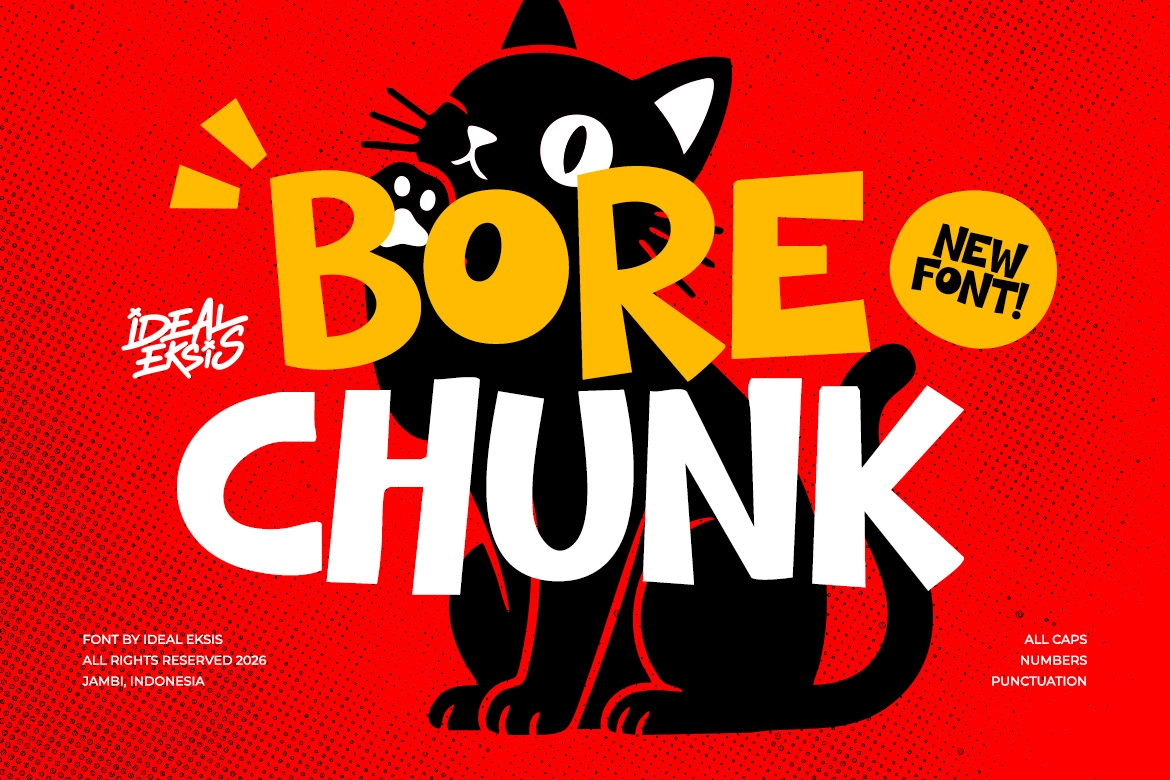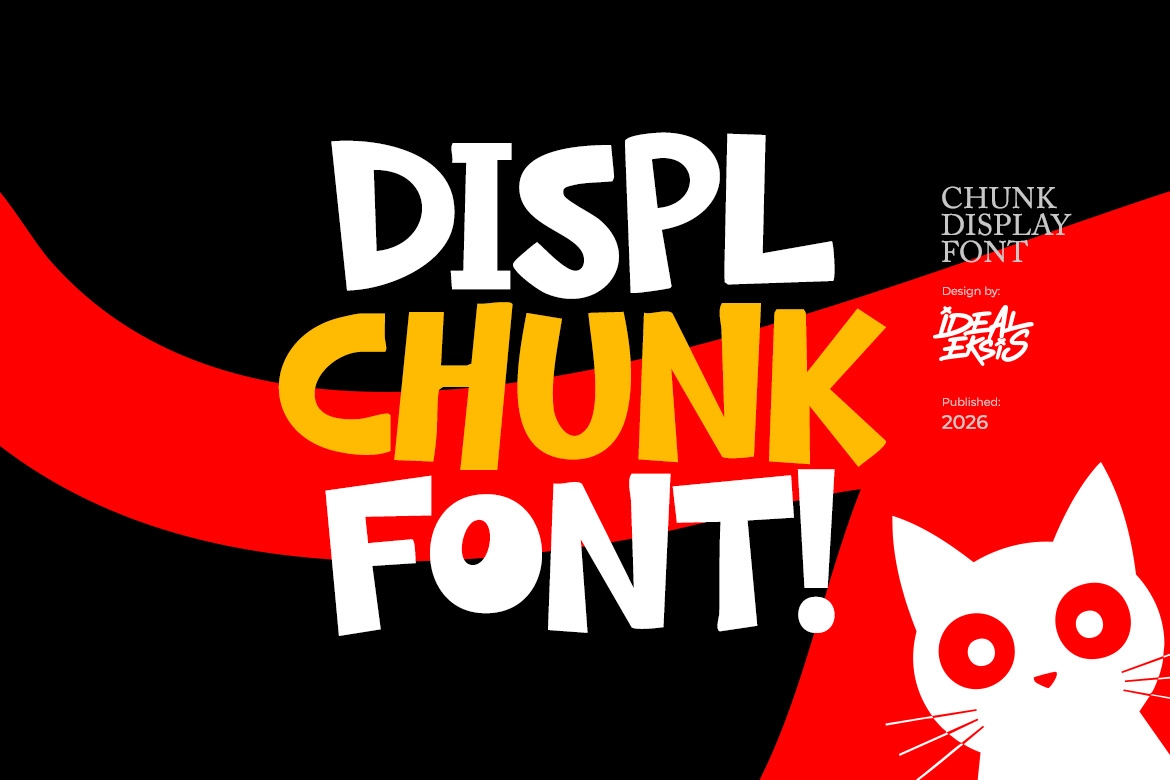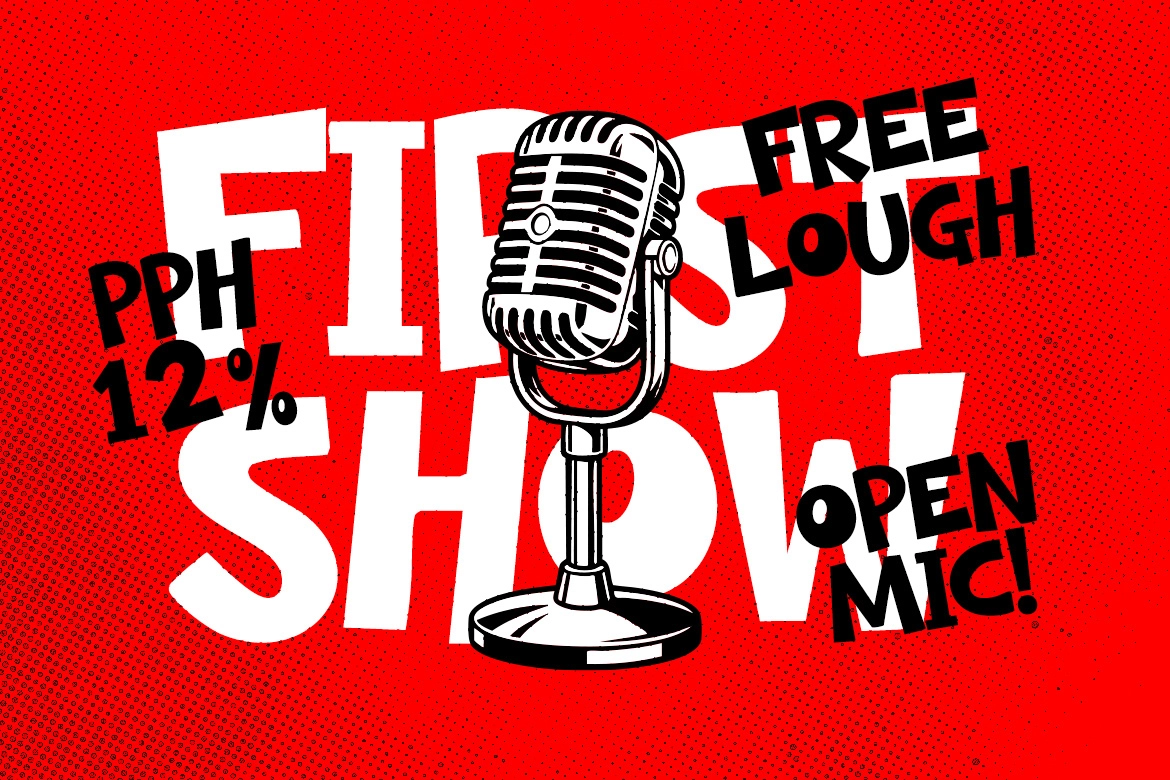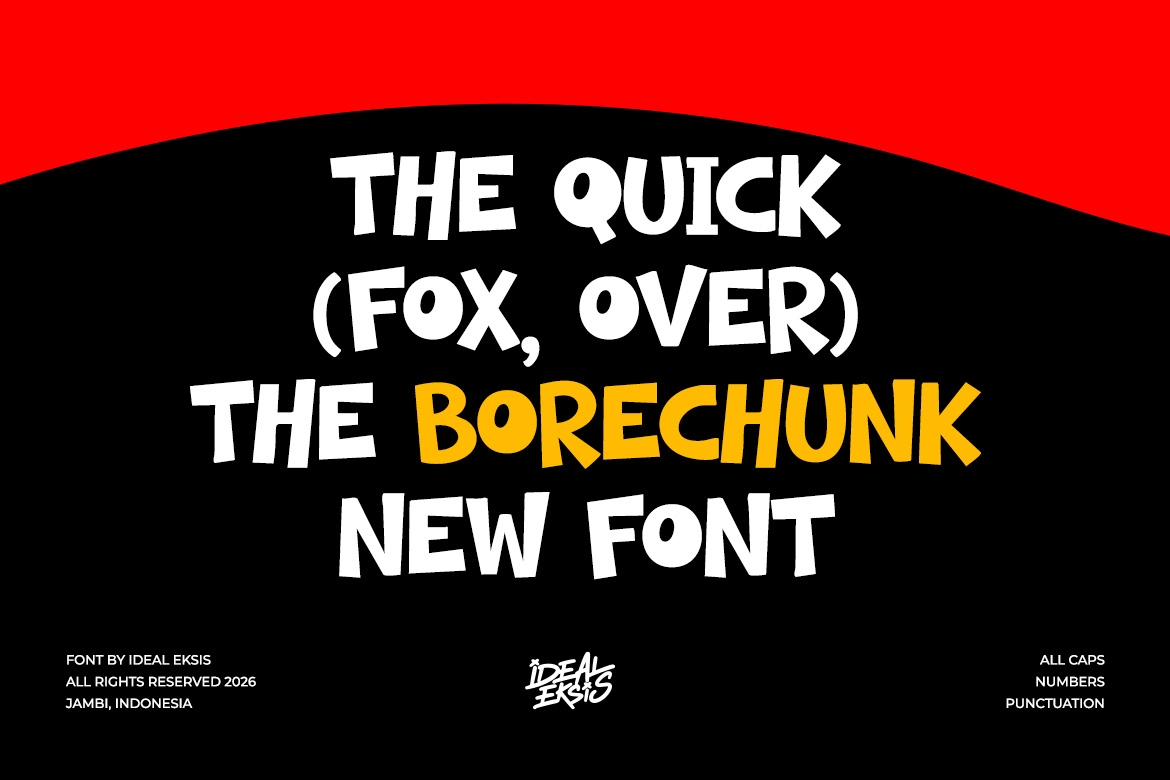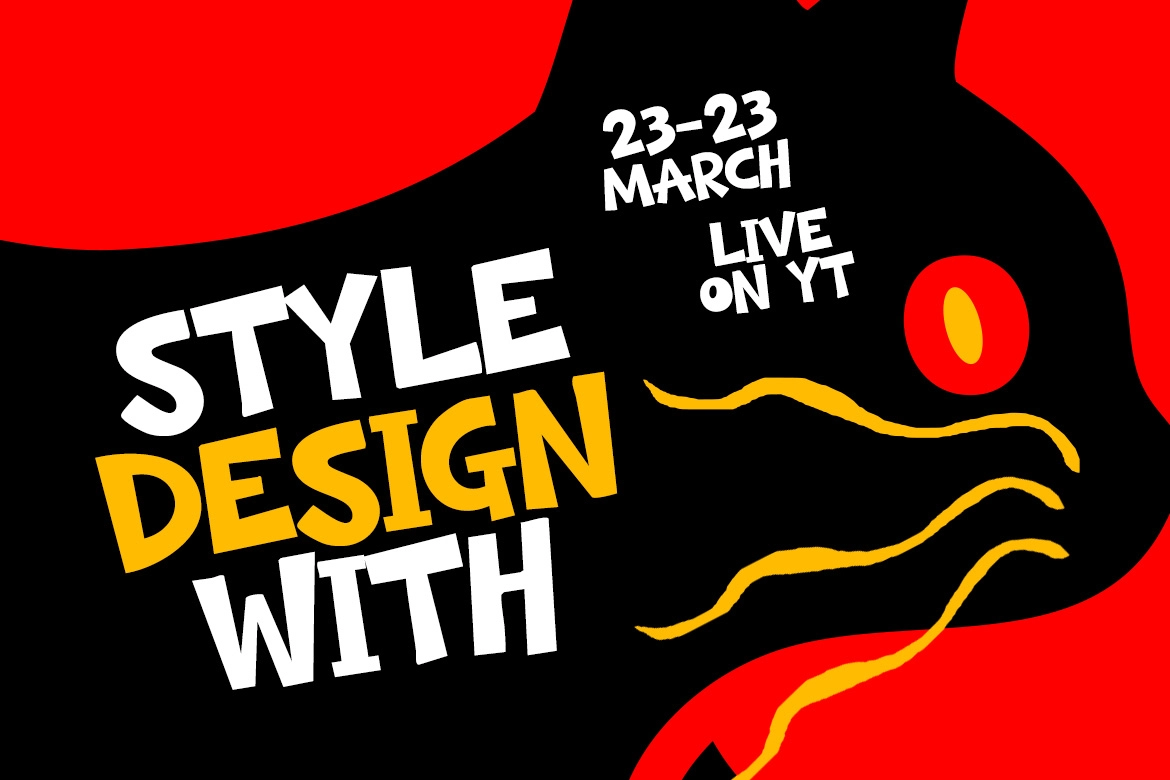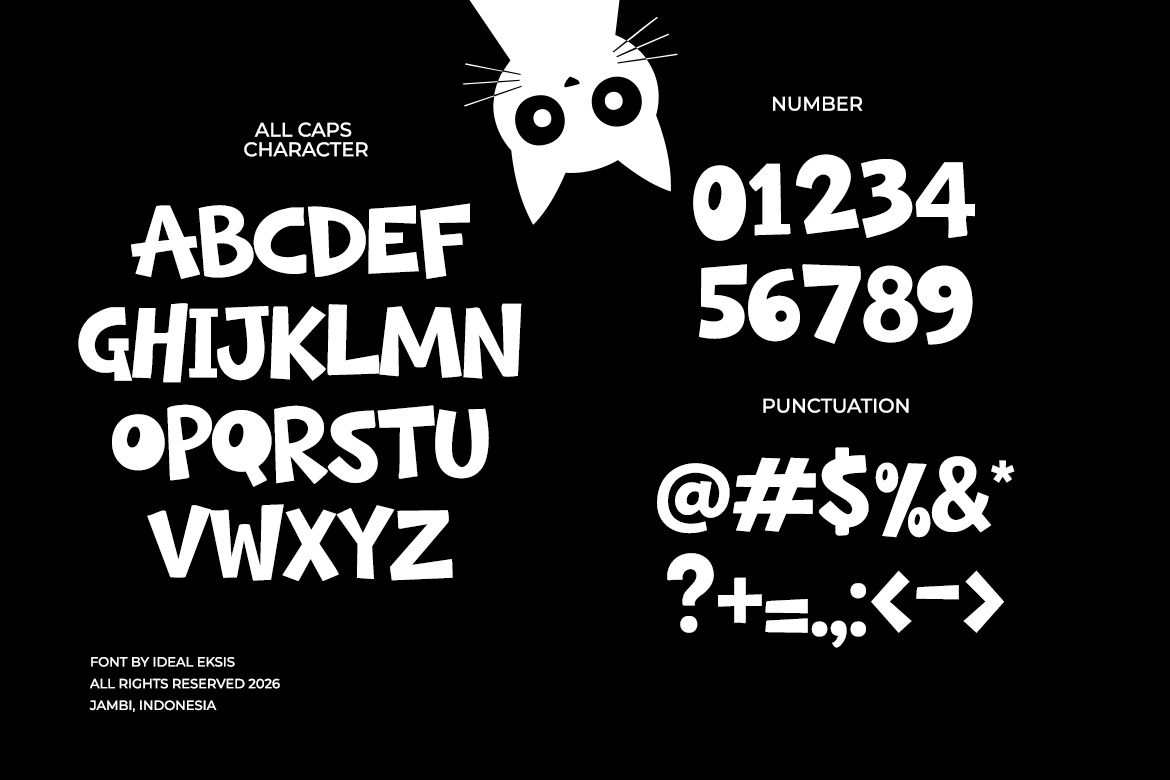
Bore Chunk - Chunky Cartoon Display Font
Bore Chunk
Bore Chunk - Chunky Cartoon Display Font is a heavy-weight all-caps typeface designed to deliver maximum visual impact with a fun, playful personality. Built with thick, chunky letterforms and slightly irregular hand-drawn edges, this font radiates energy, friendliness, and bold cartoon charm.
The low-contrast structure ensures strong readability at large sizes, while its organic curves and soft angles add a lively, tactile feel. Perfect for eye-catching headlines, posters, branding, and packaging, Bore Chunk brings a cheerful and expressive tone to any creative project. Whether used for comic-inspired layouts, social media graphics, or bold merchandise designs, this font guarantees a strong and memorable presence.
- All Caps (Uppercase Characters)
- Punctuation Marks
- Heavy Display Weight
- Bold Chunky Cartoon Style